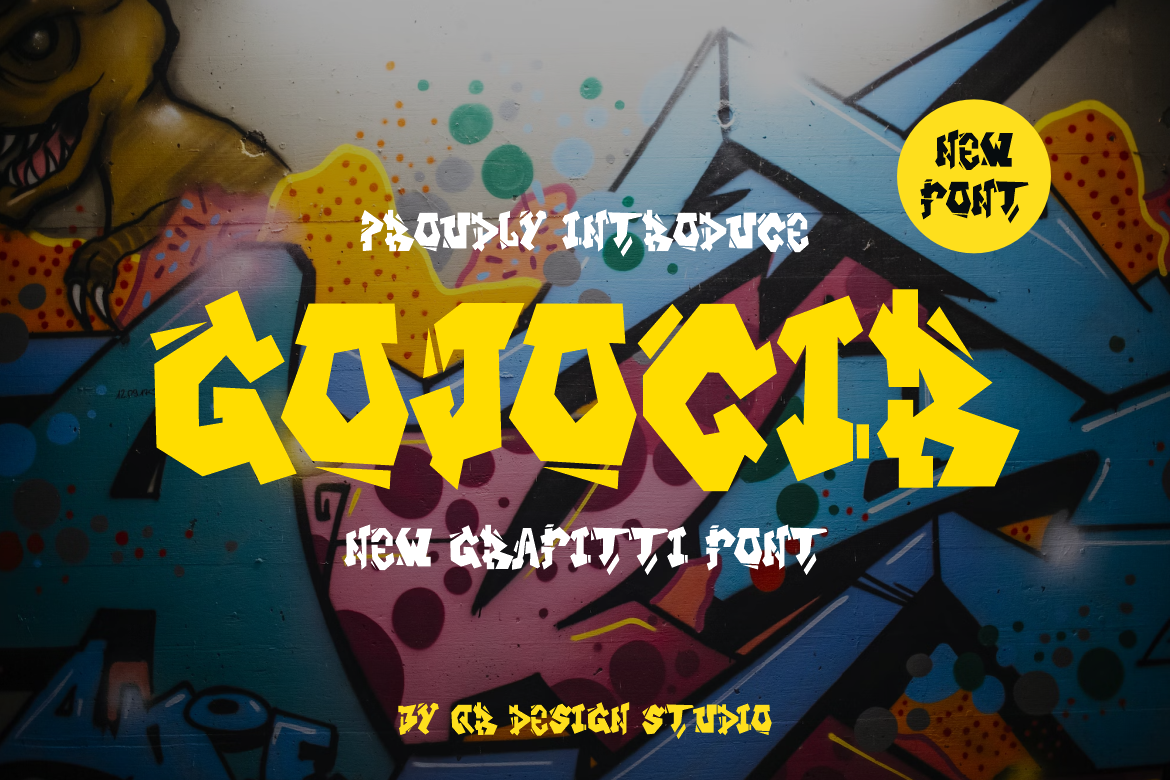
Gojocir - Graffiti Font
Gojocir - Graffiti Font is a bold and authentic display font. The font is suitable for any branding project like poster, art, poster, logo, sport, and many more. Outstanding in a wide range of contexts.